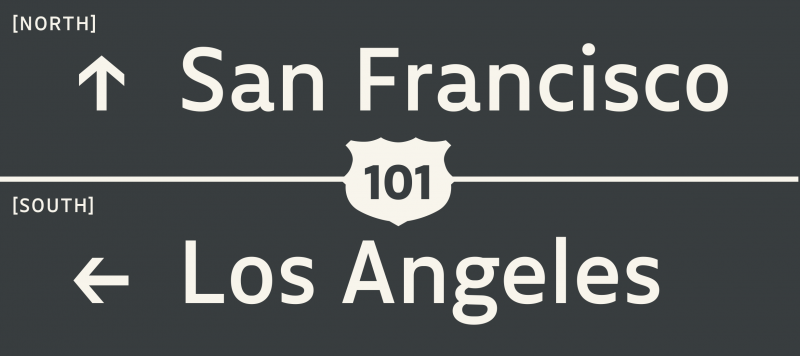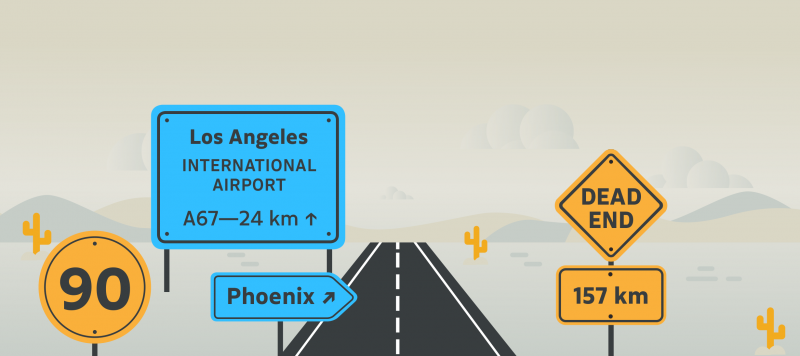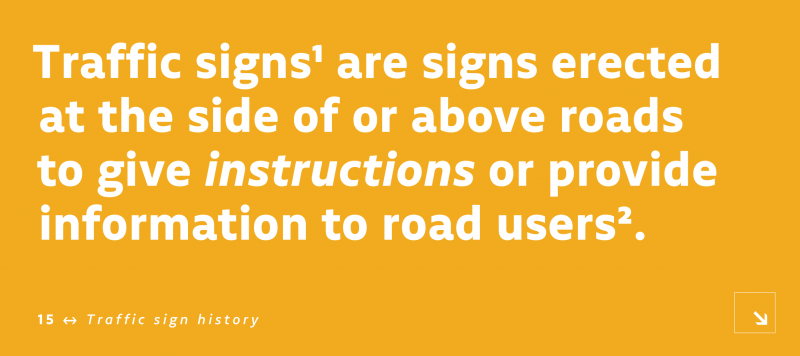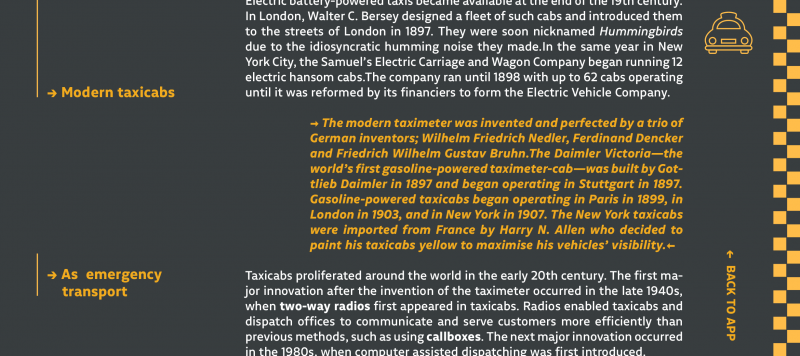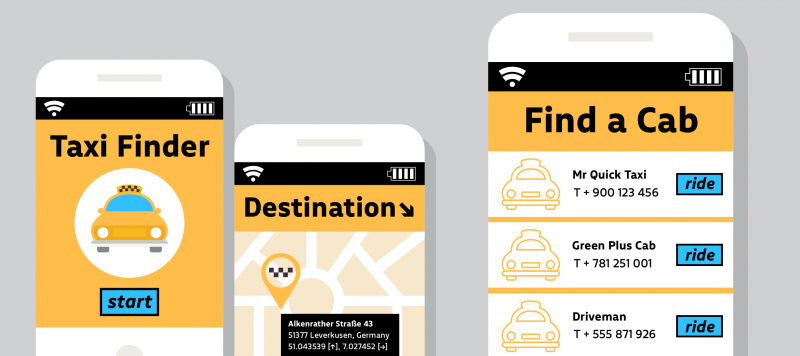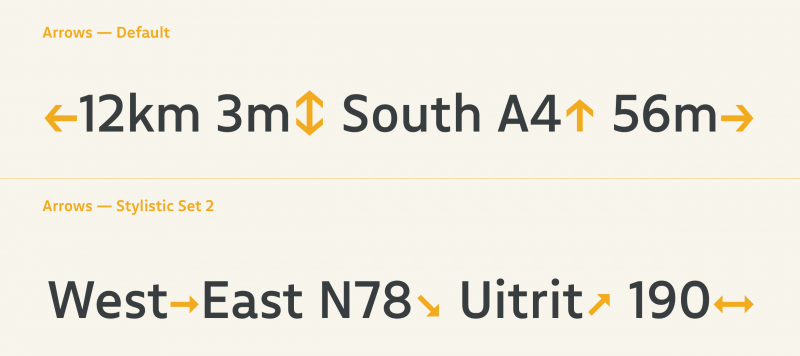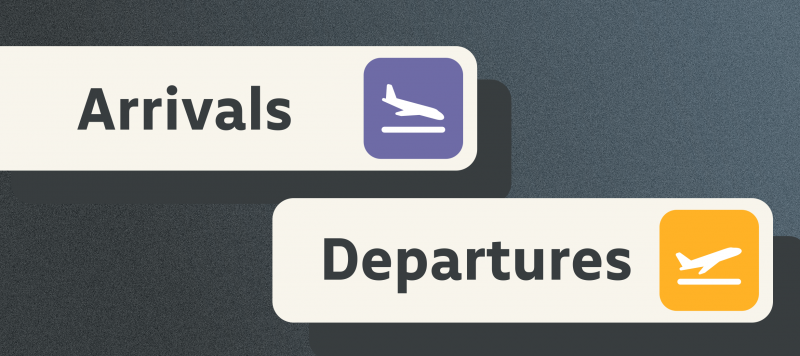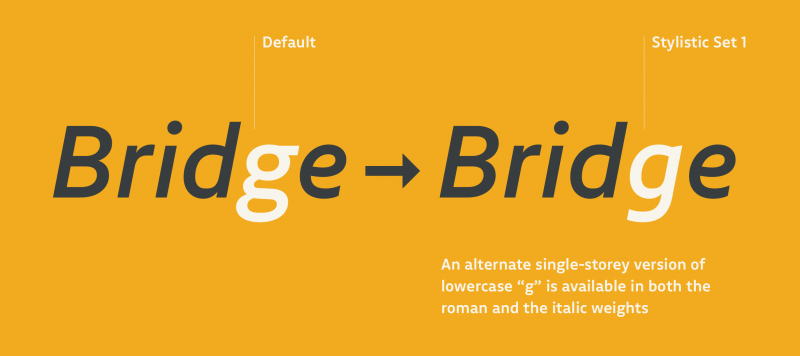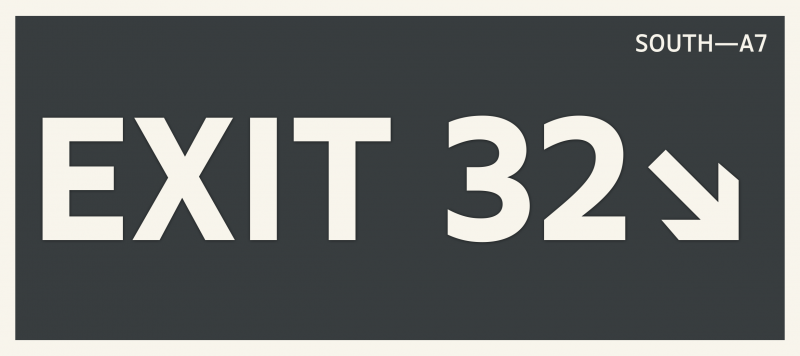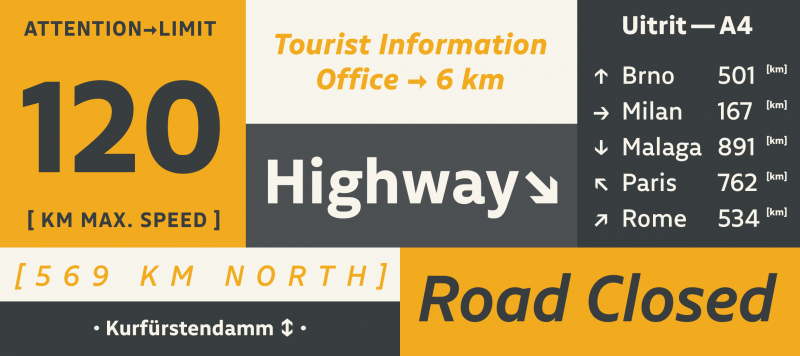
Guide is a humanist sans for use on traffic signs and wayfinding systems. The family’s four weights range from Regular to Bold and each has a companion italic. Guide’s italics have an 11° angle; the forms of the ‘a’, ‘b’, ‘e’, and ‘p’ are more dynamic in the italic fonts, like ‘true italic’ letters. Each font includes 20 arrow glyphs. The tops of Guide’s uppercase letters and numerals align at the same height; the ascenders rise slightly above this. Guide’s lowercase letters have a large x-height and prominent diacritical marks. Each font includes an alternate single-story ‘g’ and smaller versions of the default arrows in two stylistic sets. There is also a contextual alternates feature that substitutes a shortened ‘f’ before letters with ascenders
| Family Name | Guide |
| Designer(s) | Elliott Amblard |
| Classification | Sans |